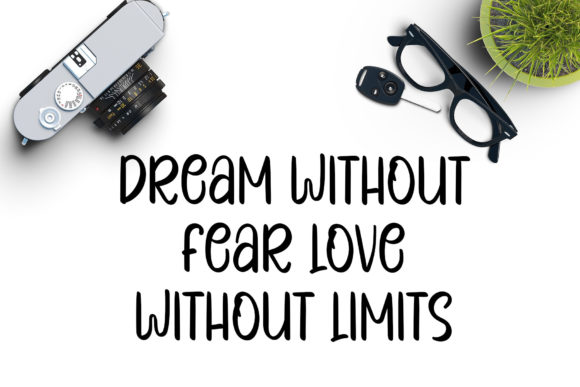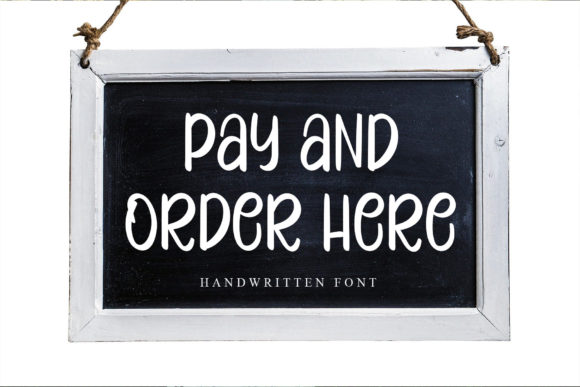
School Football Font
db-ku.com - Script & Handwritten -- School football is a beautiful handwritten font that can help you create spectacular designs! Carefully crafted, this typeface is the perfect choice for projects that need an authentic and naturally charming touch!